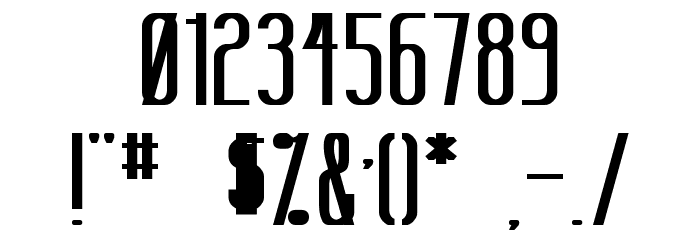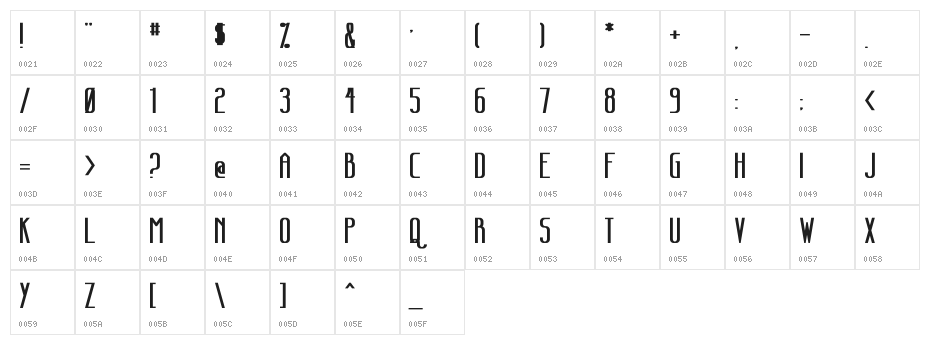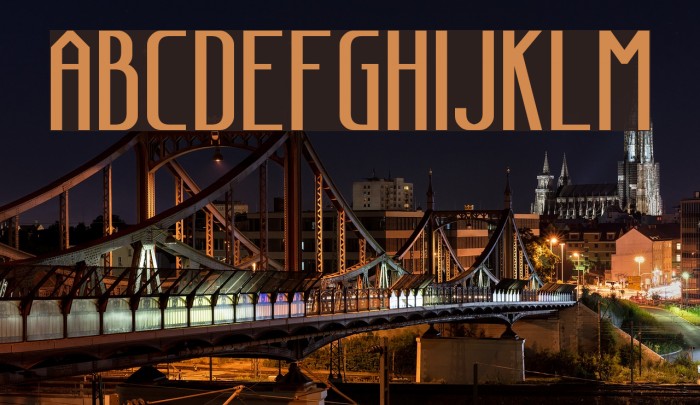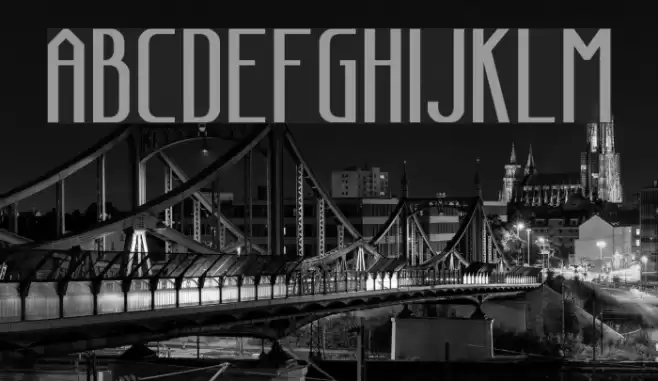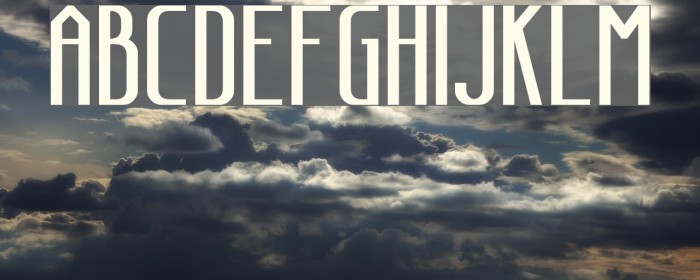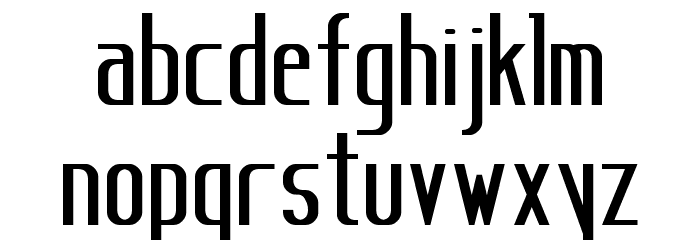
Sanity Bold Font
Sanity Bold Description
This font features a bold and condensed style with a modern and sleek appearance. The characters are tall and narrow, emphasizing verticality and creating a strong visual impact. The uppercase letters are particularly striking, with sharp angles and clean lines that convey a sense of precision and sophistication. The lowercase letters maintain the same condensed form, ensuring consistency across text. Numbers and special characters are designed to match the boldness and geometric nature of the alphabet, making them suitable for a variety of applications. The overall design is minimalistic yet impactful, ideal for projects that require a contemporary and assertive typeface.